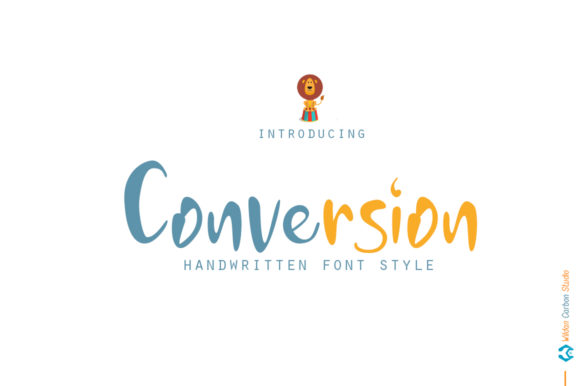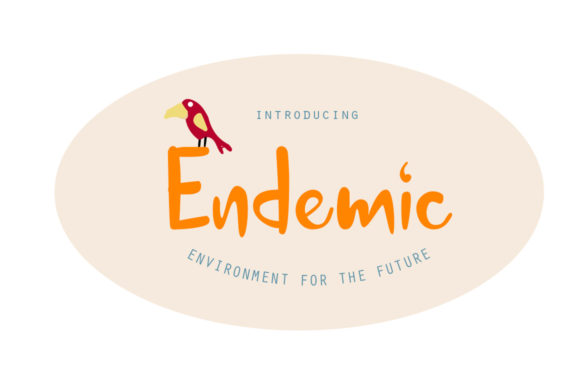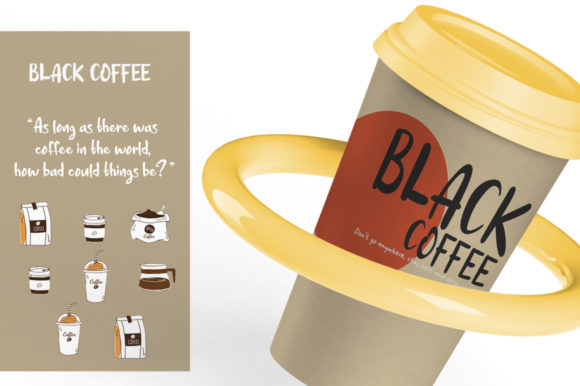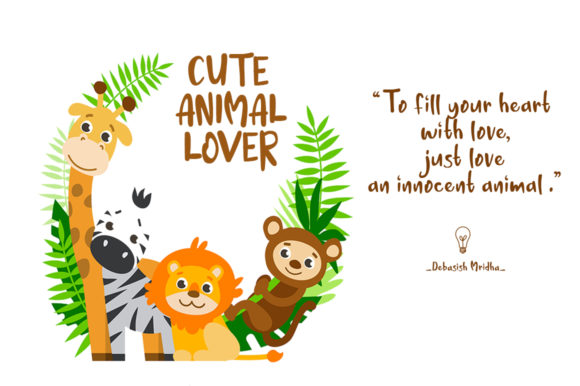
About Conversion Font
Conversion is a cute and quirky handwritten font. It is the best choice for creating eye catching logos, branding and quotes. Every letter has a unique and beautiful touch, which will make your design come alive!